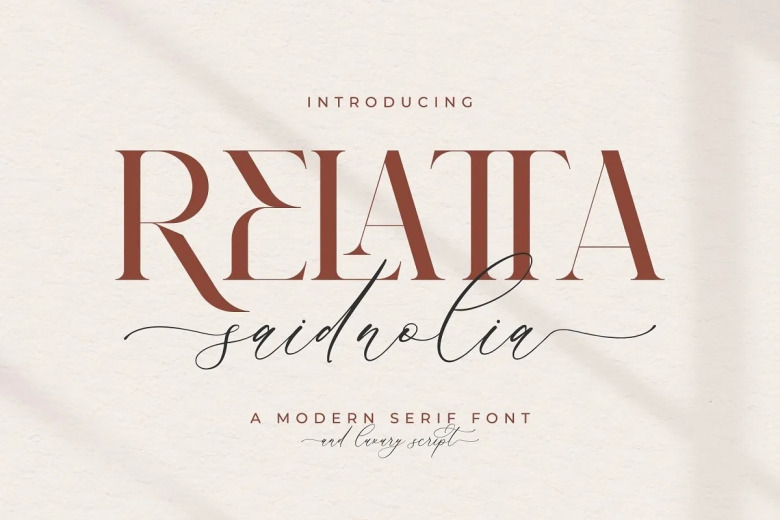
Relatta Saidnolia Font
Relatta Saidnolia is a spectacular font duo (script and serif). It will add a luxury spark to any design project that you wish to create! This font is PUA encoded which means you can access all of the amazing glyphs and ligatures with ease!
Relatta Saidnolia Font Duo